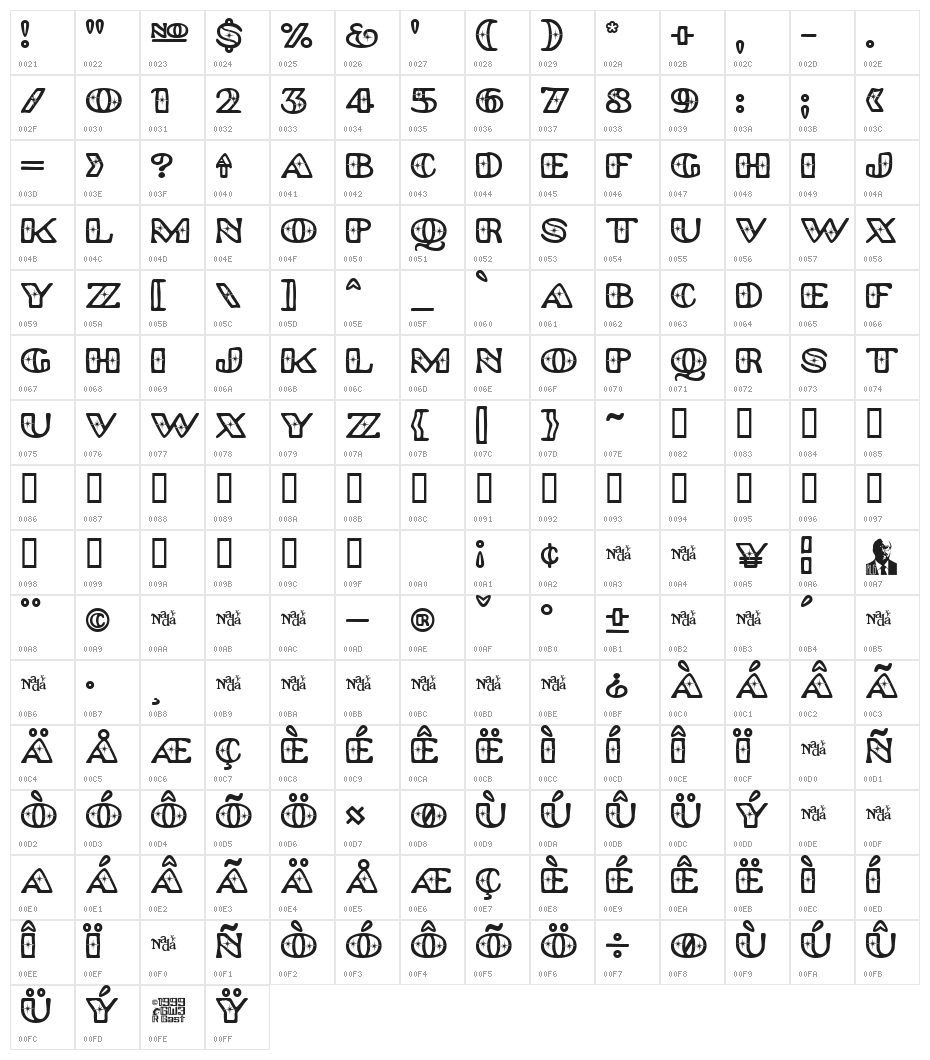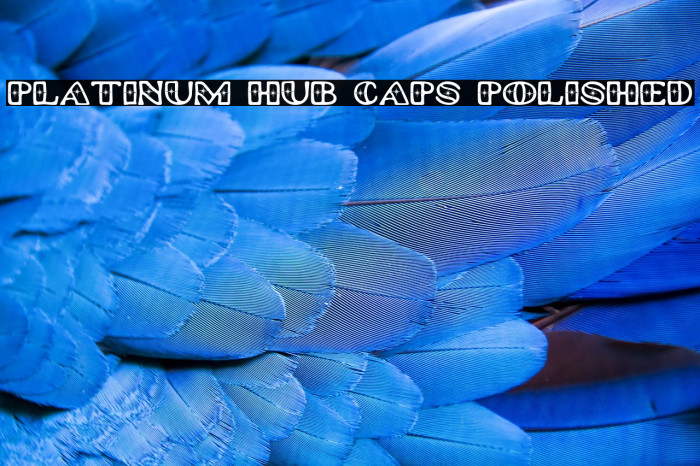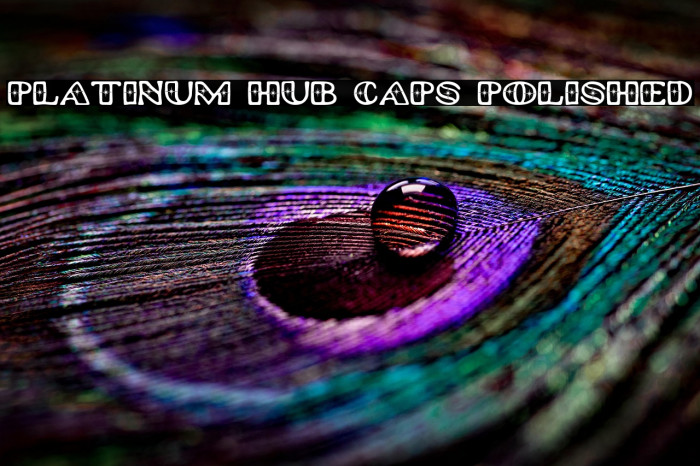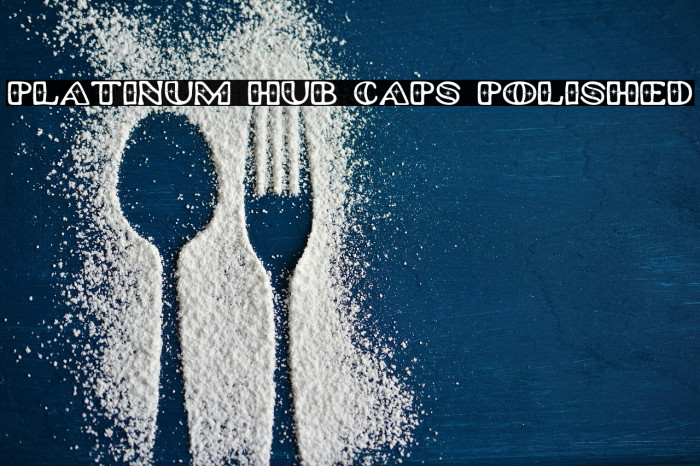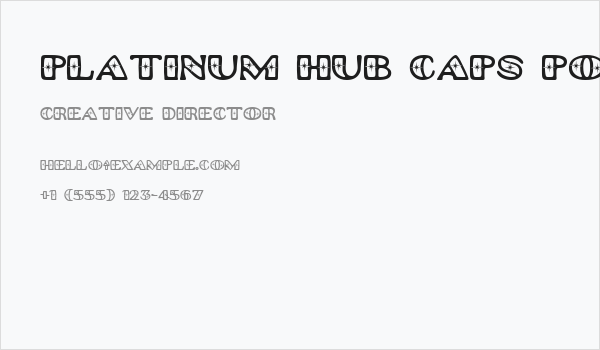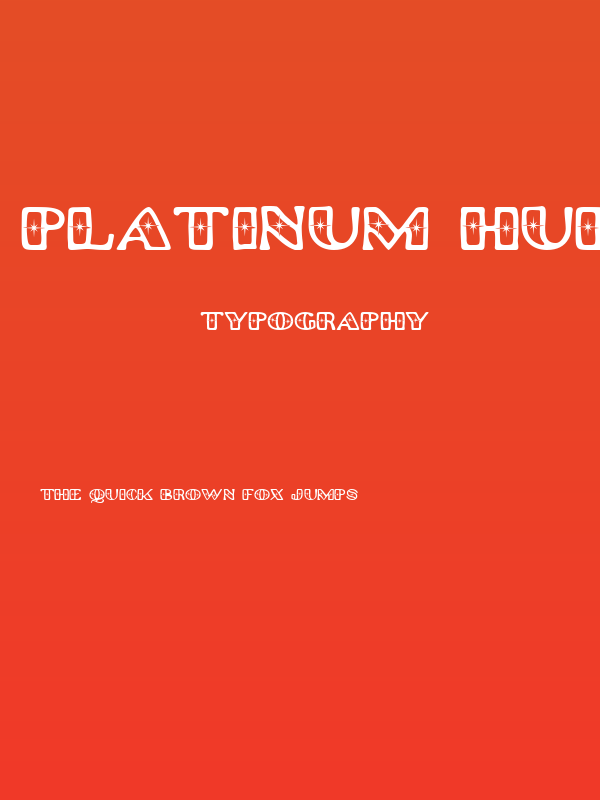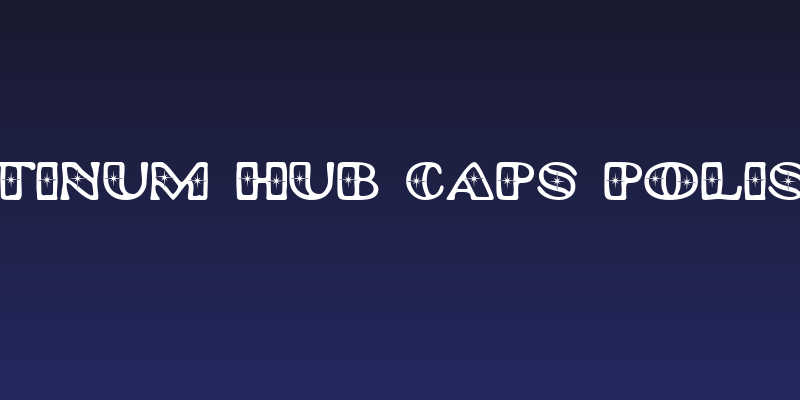
Platinum Hub Caps Polished Font
Platinum Hub Caps Polished Description
This decorative font features bold, uppercase and lowercase letters with a unique star pattern embedded within each character. The design is eye-catching and playful, with a strong emphasis on visual appeal. The characters are outlined in black, providing a striking contrast against the white interior filled with stars. The numbers and special characters follow the same design, ensuring consistency across all glyphs. This font is ideal for projects that require a fun and engaging aesthetic, such as children's books, party invitations, or playful branding.
| Proposed Projects | Ideal for children's books, party invitations, playful branding, and decorative posters. |